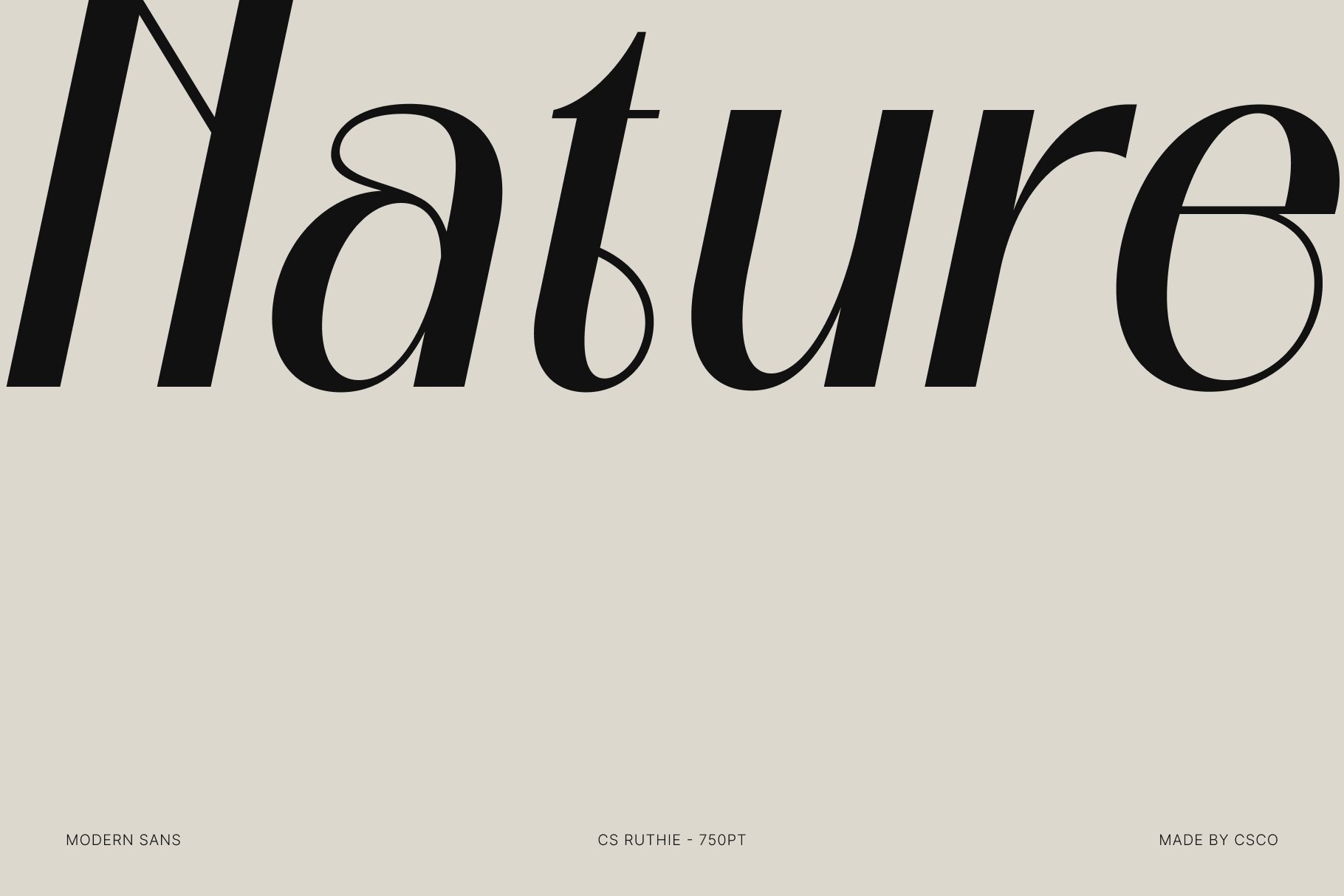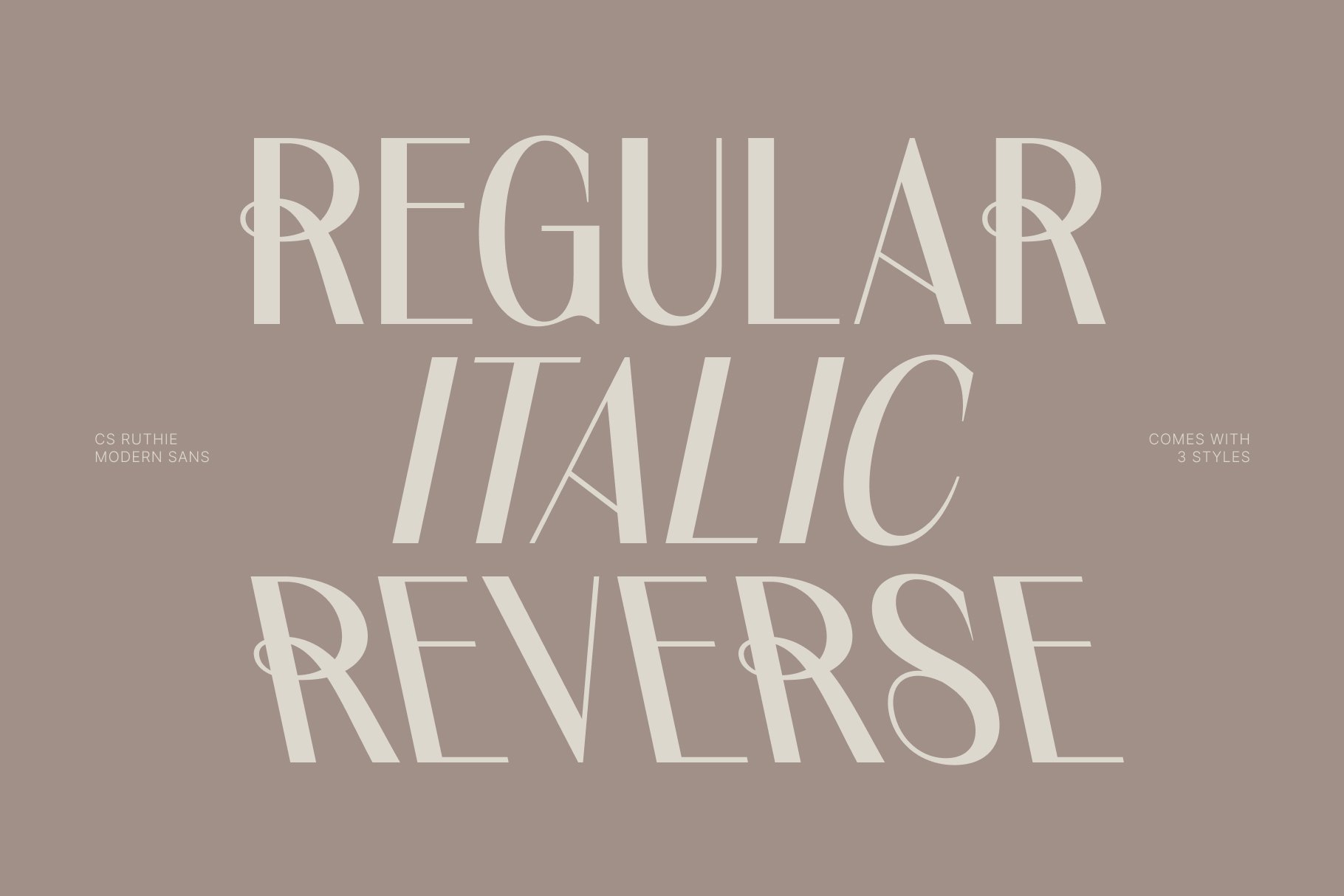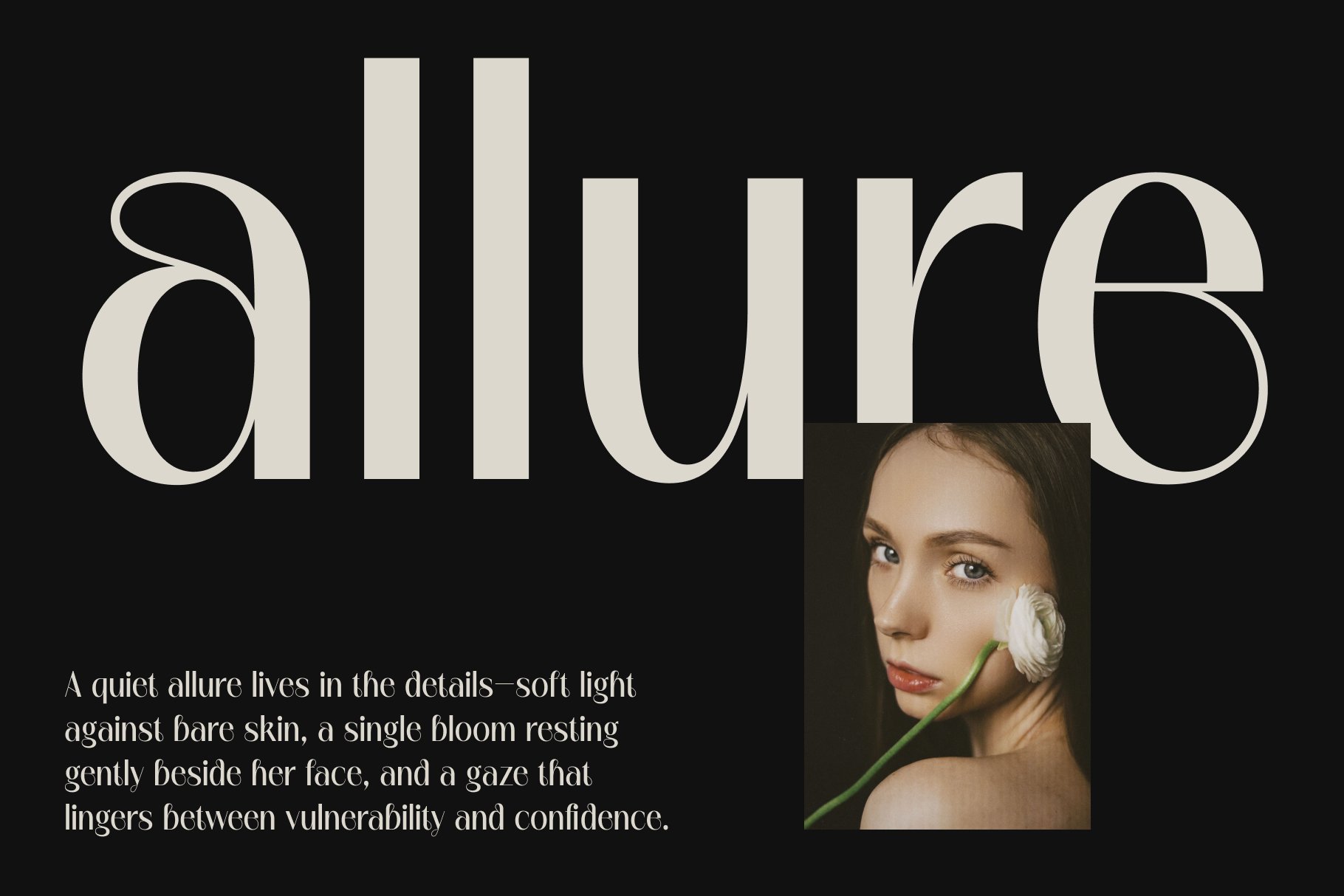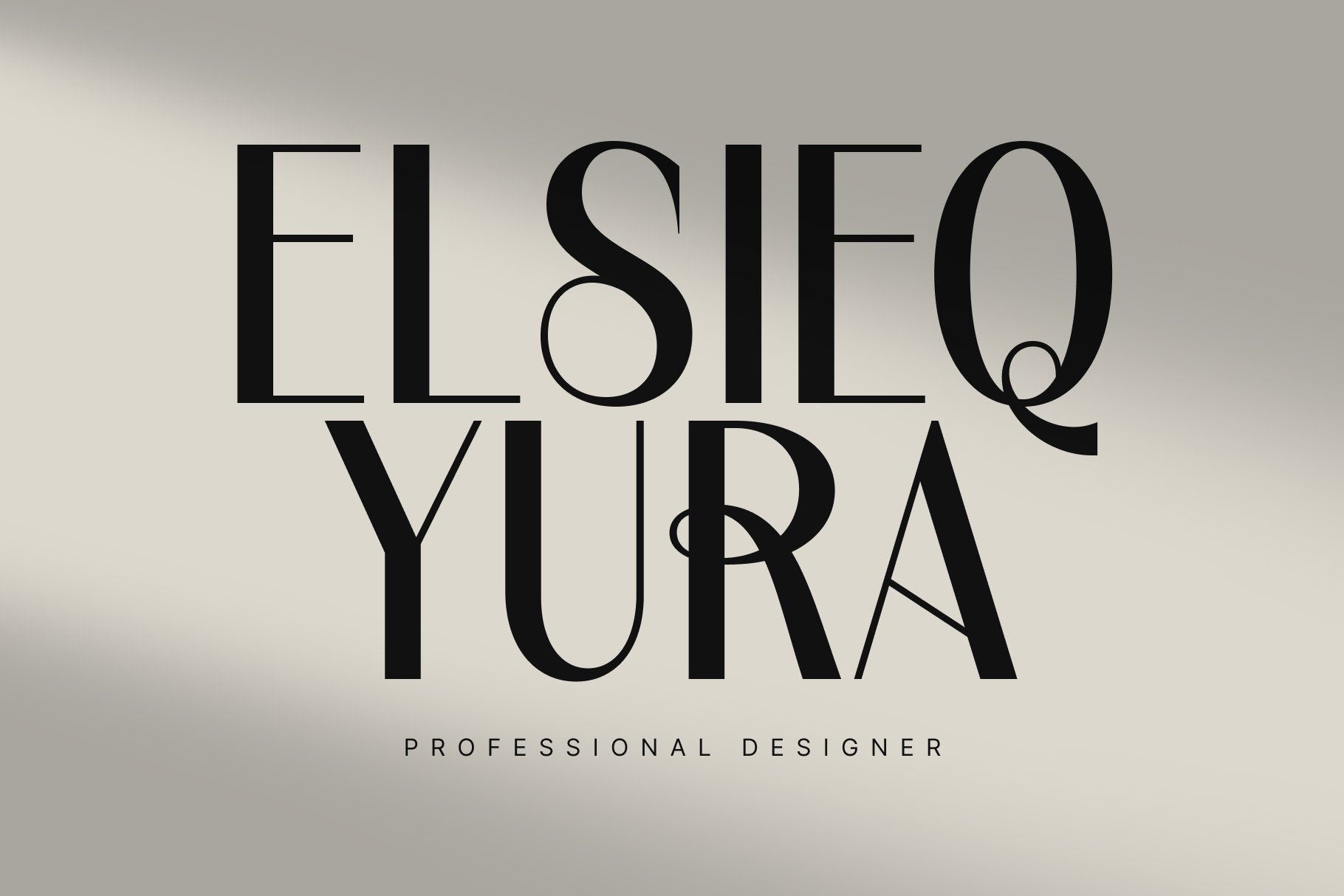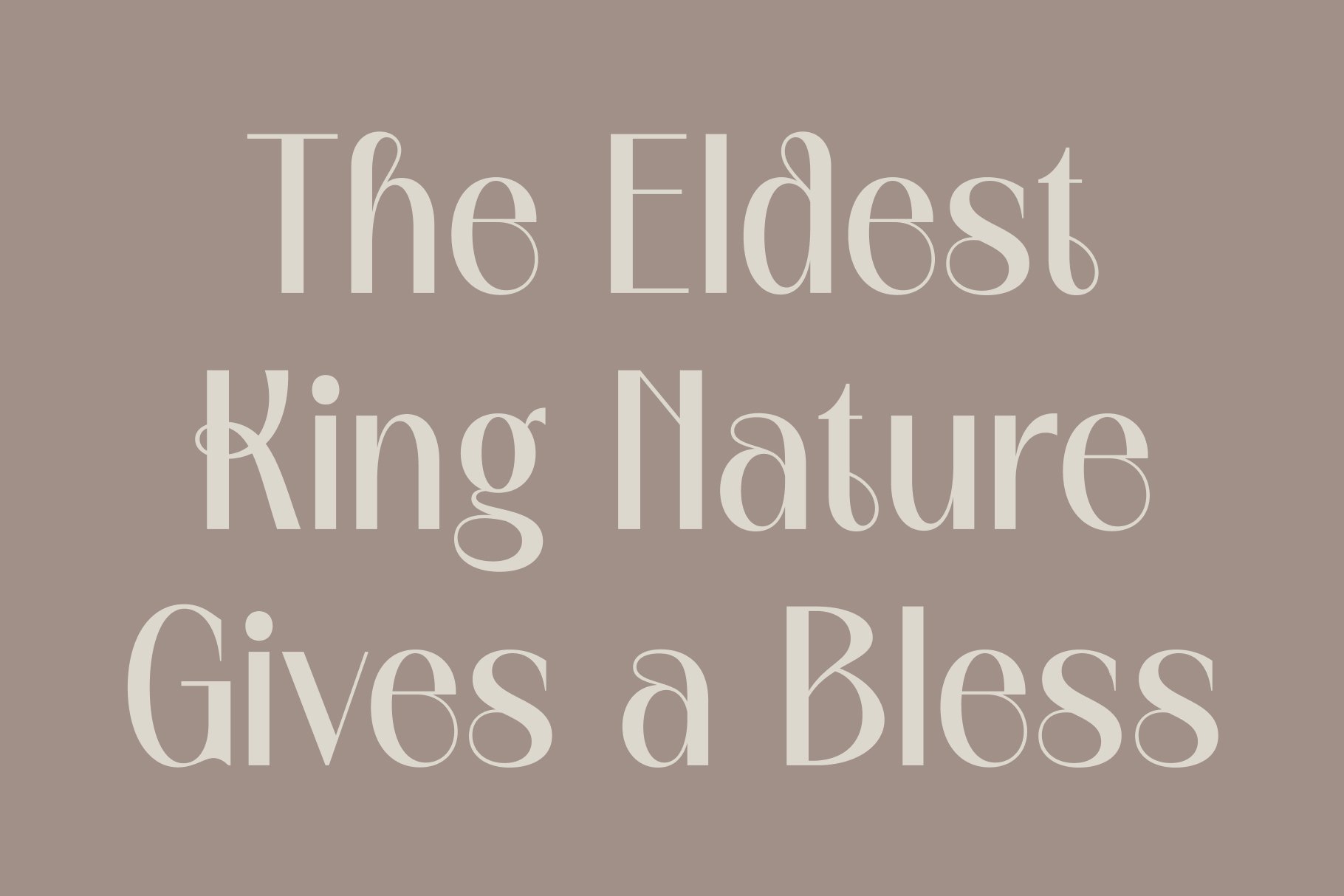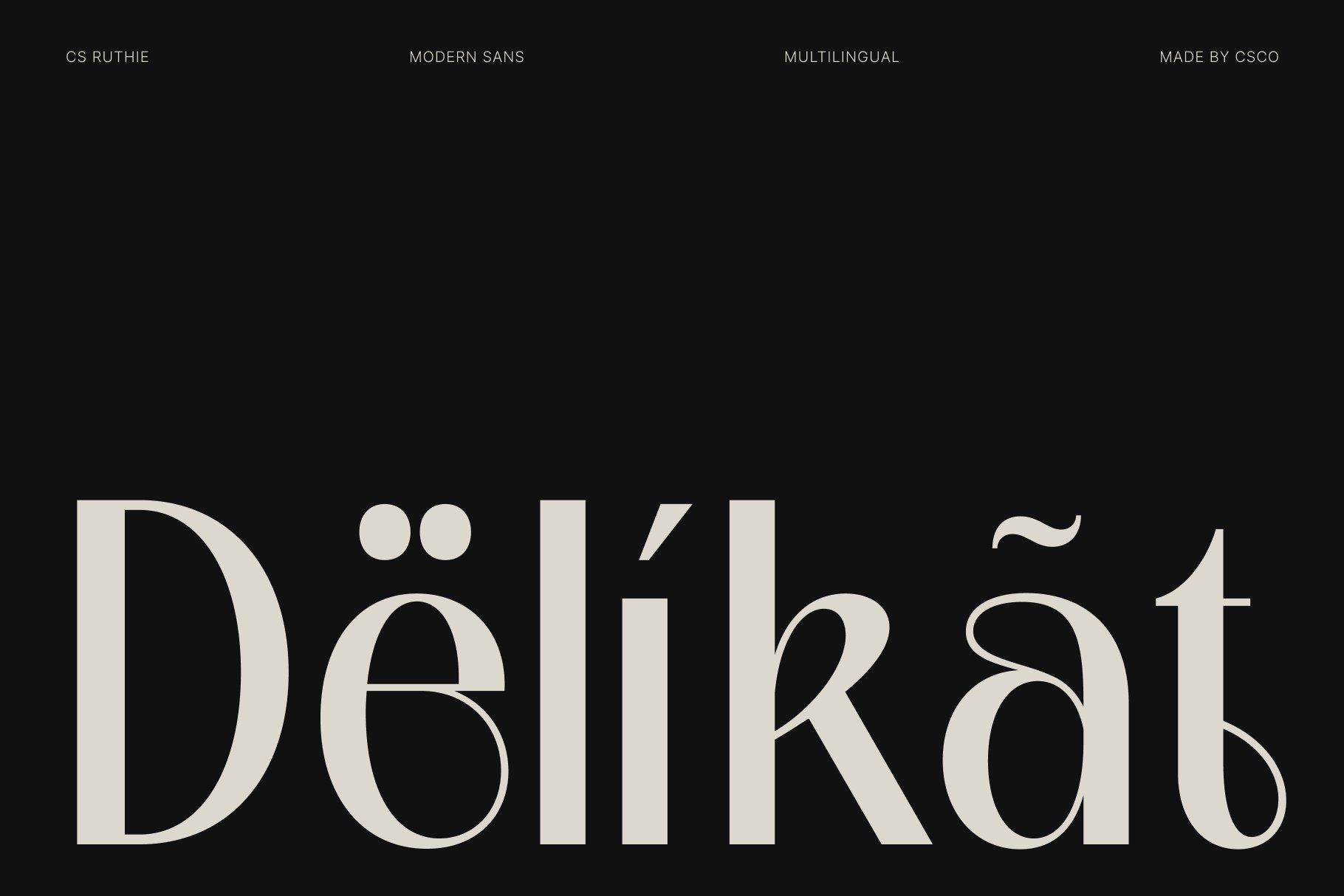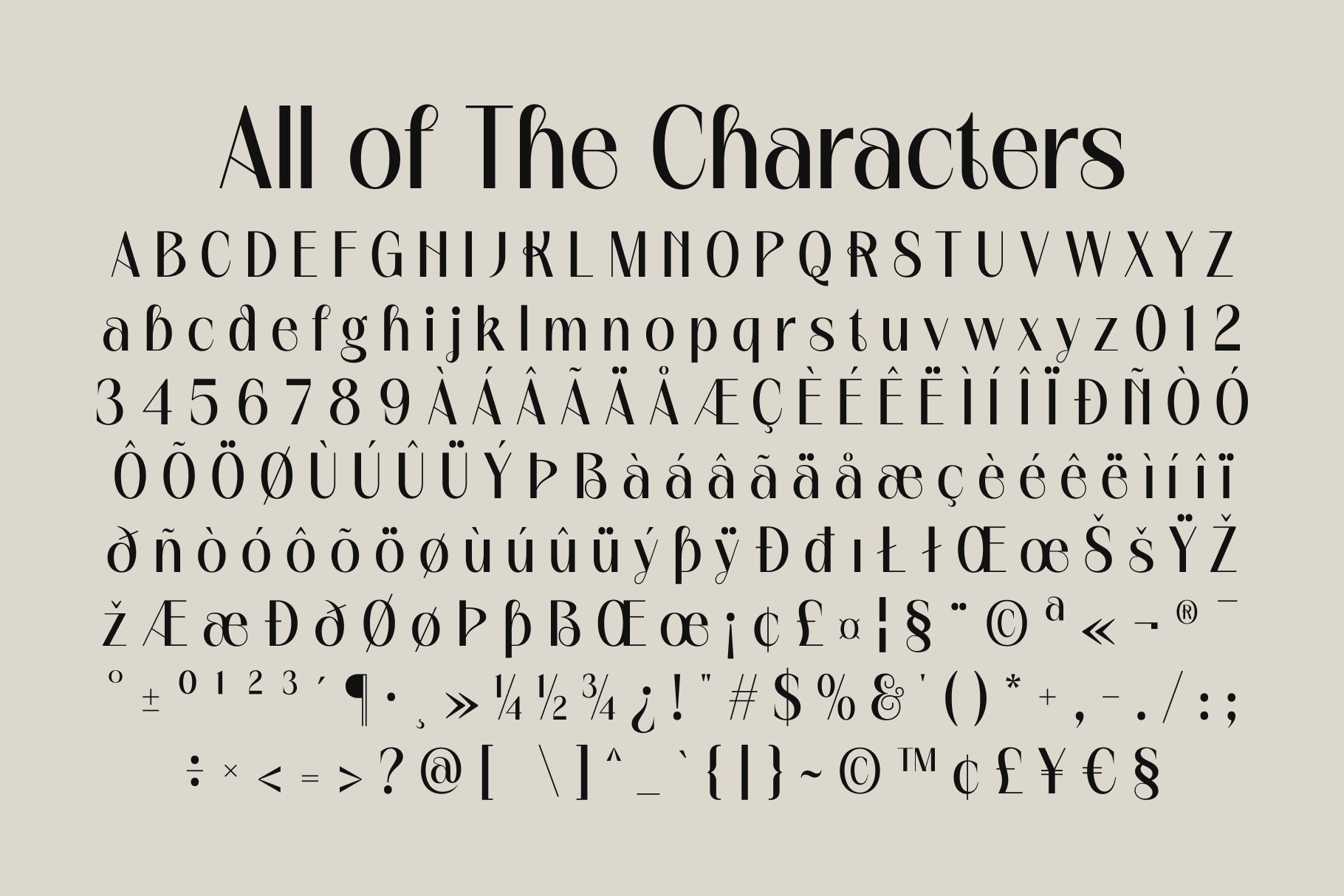
This is a modern serif font that masterfully balances classic elegance with a distinct creative flair. Designed for those who seek a sophisticated yet unconventional aesthetic, this font bridges the gap between traditional typography and contemporary design sensibilities.
This font features refined strokes and precise terminals that command attention without sacrificing readability. The contrast between its thick and thin lines creates a rhythmic cadence, ensuring that every word carries a sense of intentionality and poise across various weights and sizes.
This typeface is a perfect choice for high-end branding, where visual prestige is paramount. It excels in luxury contexts, lending an air of exclusivity to boutique logos, editorial layouts, and premium packaging. Whether used in bold headlines or delicate subheaders, it maintains a polished, professional presence.
Integrating this font into your design toolkit allows for a seamless transition from corporate formality to artistic expression. It is an ideal asset for designers crafting visual identities for fashion houses, architectural firms, or high-end lifestyle brands. By choosing this font, you ensure your project communicates a timeless quality paired with a forward-thinking edge.
- CS Ruthie Regular
- CS Ruthie Italic
- CS Ruthie Reverse Italic